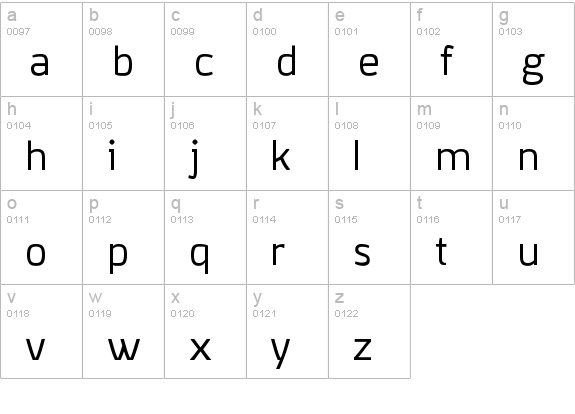
Korpo Sans Font Details
Korpo Sans font is a modern and versatile typeface that combines elegance with simplicity. Its clean lines and balanced proportions make it suitable for a wide range of design projects, from branding to editorial design. The font's smooth curves and sharp edges give it a contemporary and sophisticated look, making it perfect for creating sleek and professional layouts. What sets Korpo Sans font apart is not only its aesthetic appeal but also its accessibility. Designed with readability in mind, this font ensures that your message is communicated clearly and effectively. Whether you're designing a website, a poster, or a business card, Korpo Sans font will help you make a strong visual impact. And the best part? Korpo Sans font is completely free to download at FontsMarket.com. Now you can elevate your designs without breaking the bank. So why wait? Download Korpo Sans font today and take your design projects to the next level.